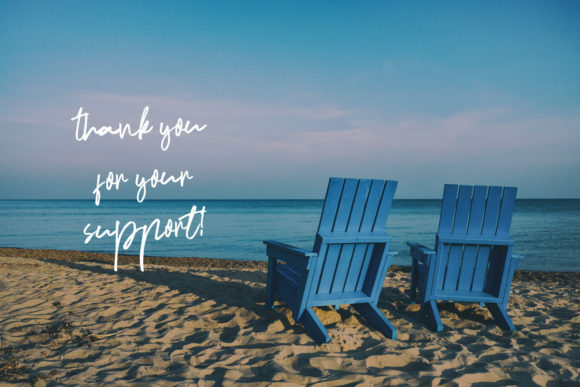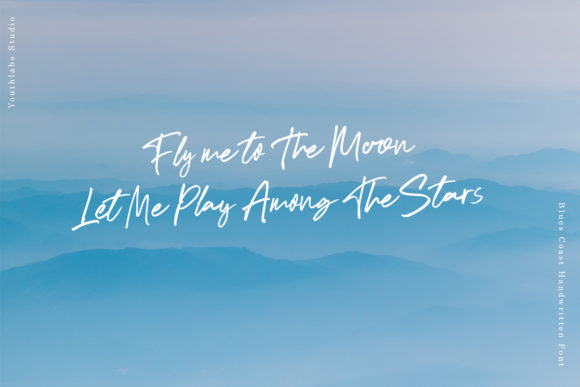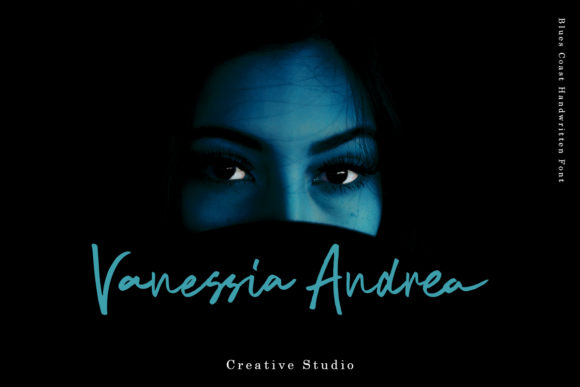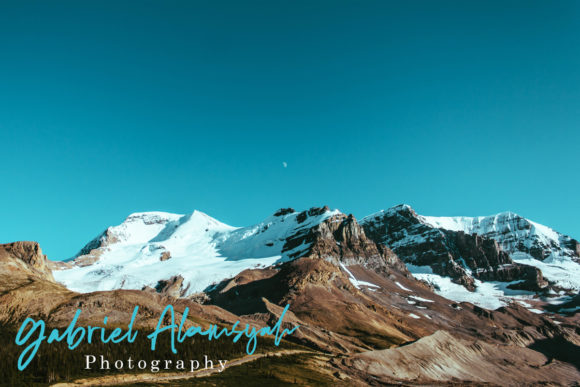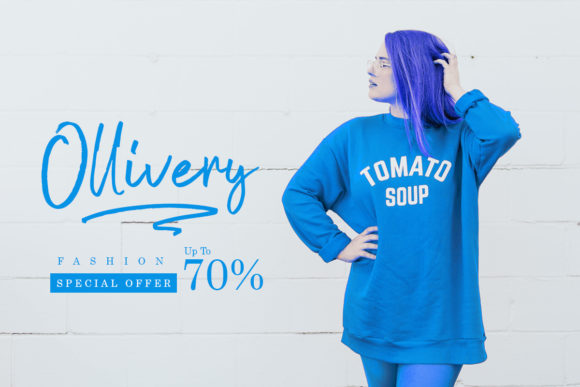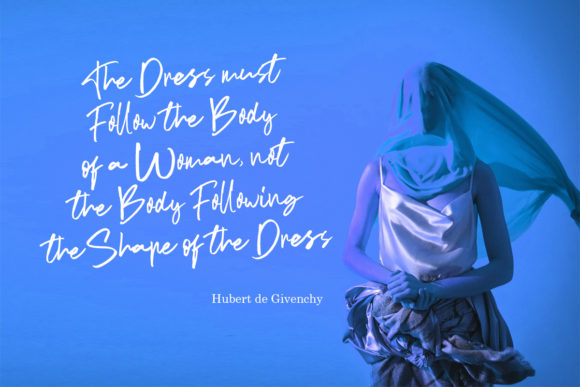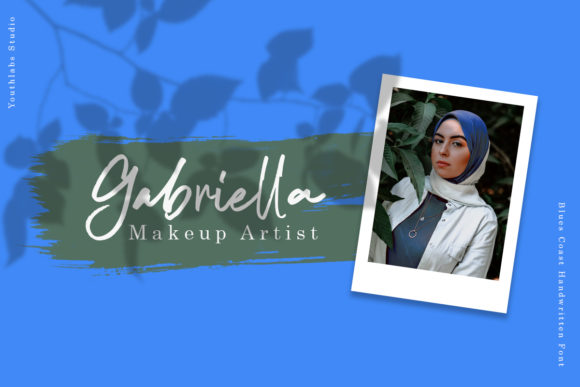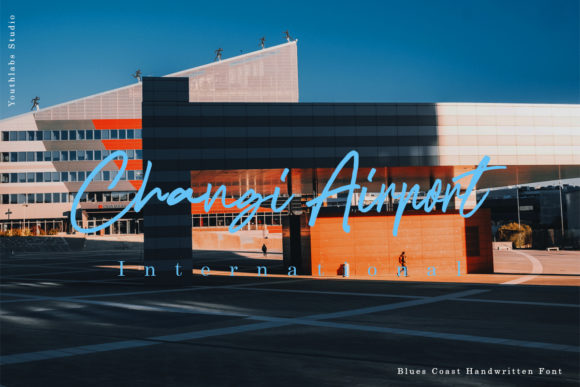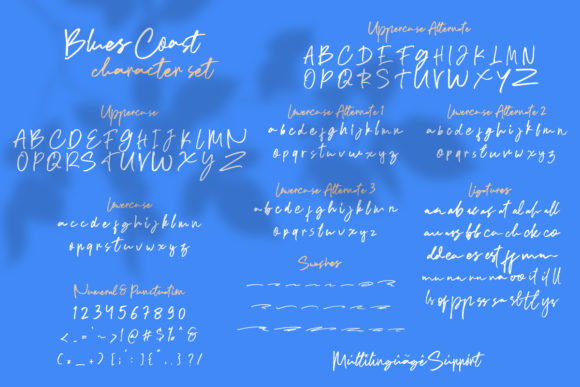
Blues Coast Font
About Blues Coast Font
Blues Coast is a friendly and modern script font with a unique appeal. It will add a stylish touch to any crafting project.